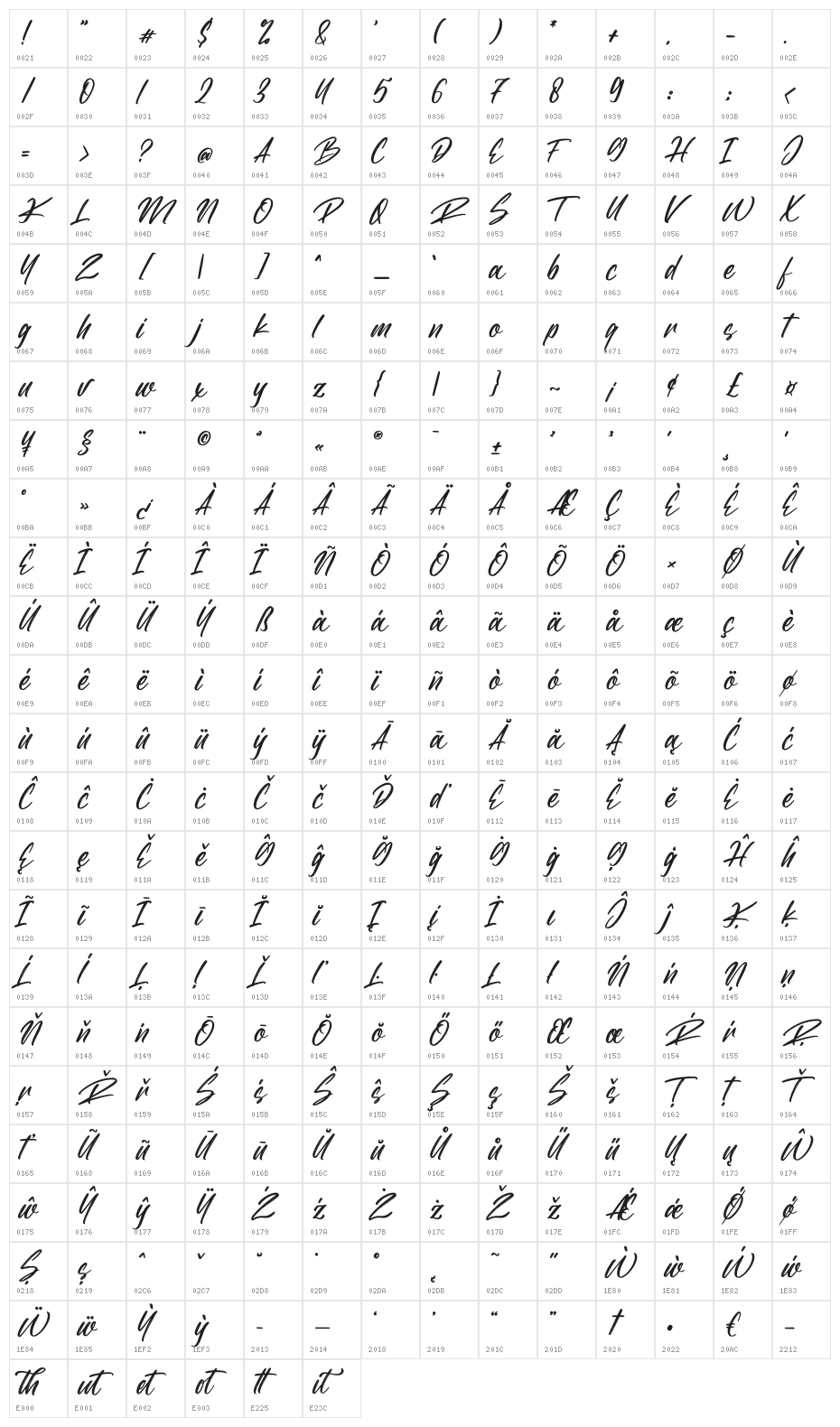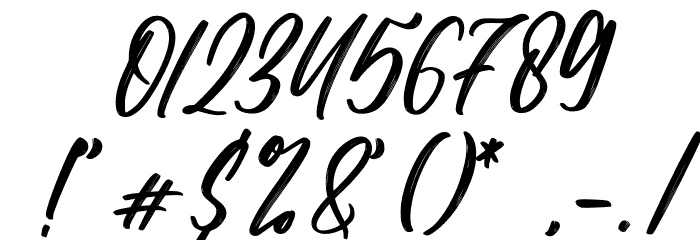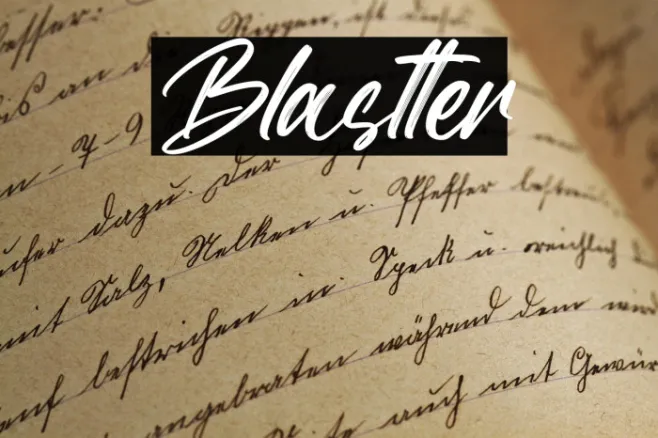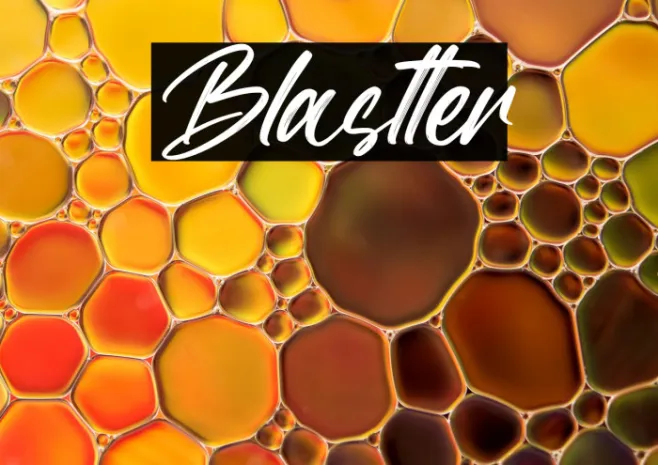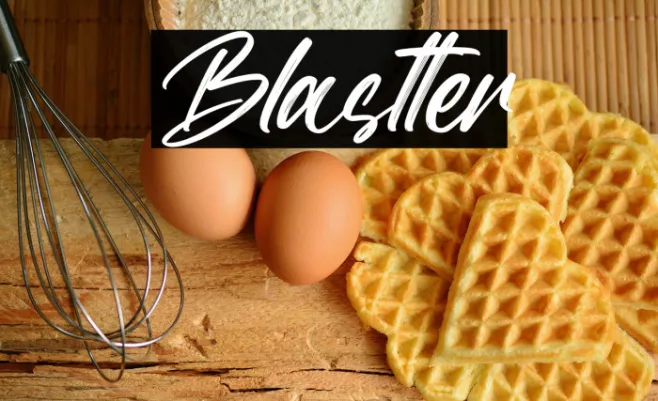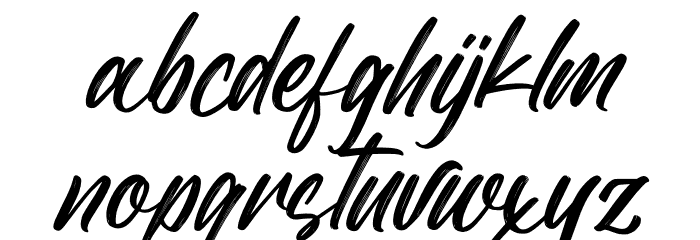
Blastter Font
Blastter Description
This font features a dynamic and expressive handwritten style, characterized by its fluid and cursive letterforms. The strokes are bold and confident, with a slight slant that adds to its energetic appearance. Each character is distinct, yet they flow seamlessly into one another, creating a cohesive and harmonious look. The uppercase letters are slightly larger and more pronounced, while the lowercase letters maintain a consistent rhythm. The numerals and special characters are designed to match the overall aesthetic, ensuring versatility across different uses.